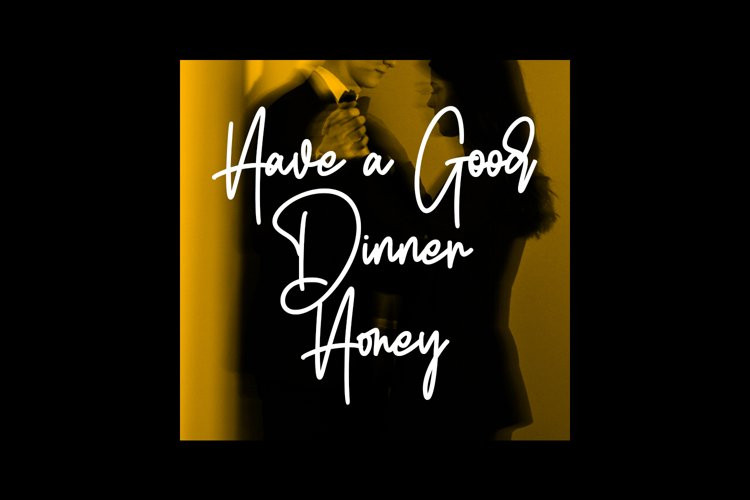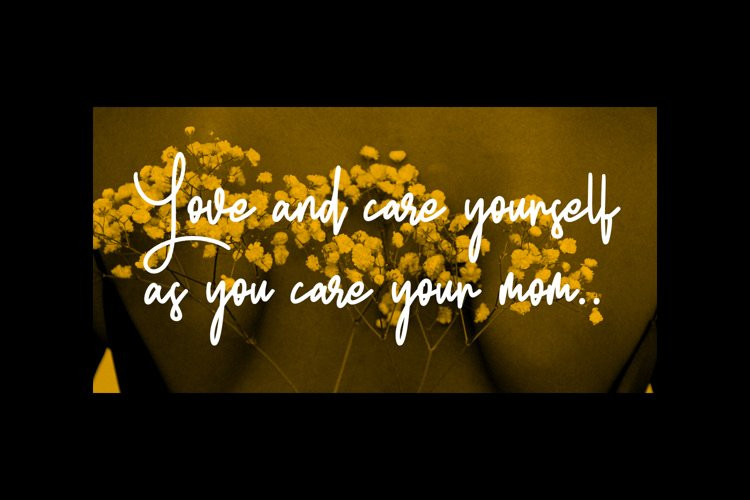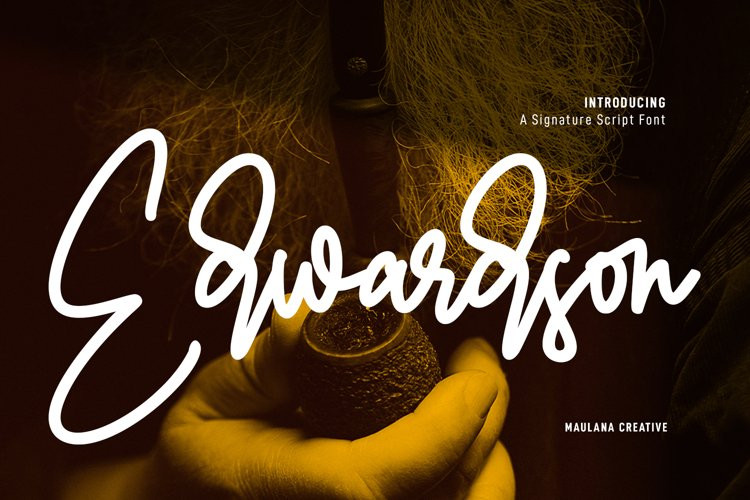
Edwardson Font
Edwardson FontEdwardson is an unique signature script font. With clean mono-line stroke, fun character with a bit of ligatures and alternates. To give you an extra creative work. Edwardson font support multilingual more than 100+ language. This font is good for logo design, Social media, Movie Titles, Books Titles, a short text even a long text letter and good for your secondary text font with sans or serif. Make a stunning work with Edwardson font.